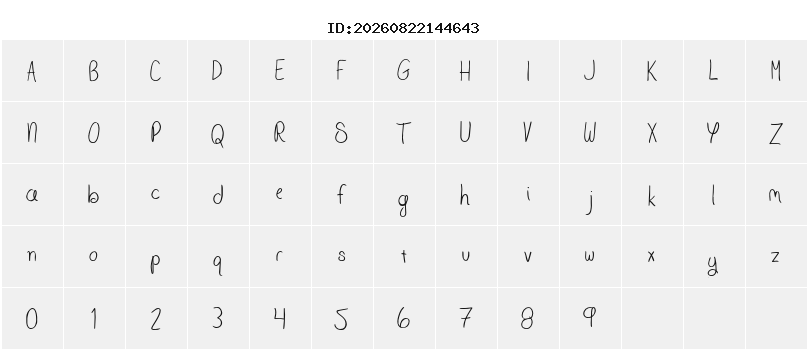
• Font Name: Scranton Fancy
• Designer: =^_^=
About Scranton Fancy.otf
Scranton Fancy.otf is a modern, elegant sans-serif font designed for ultimate readability and visual harmony. Perfect for branding, headlines, web design, and print materials.